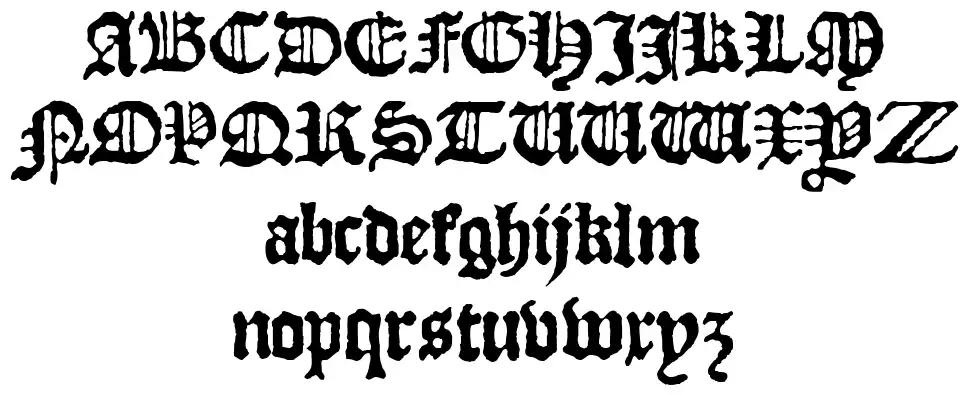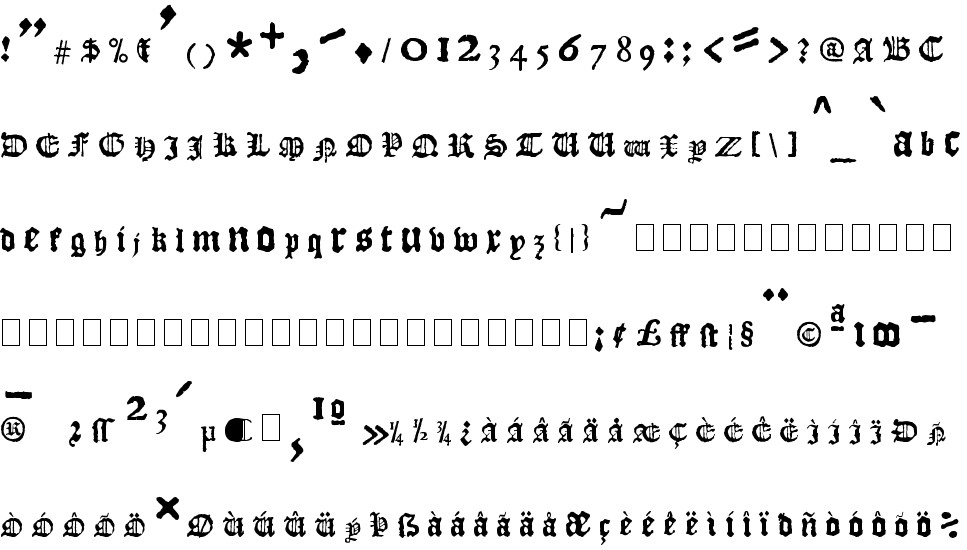
46+ Jsl Blackletter Font PNG. The jsl blackletter font is based upon a typeface created by william bullokar, for his booke at large, for the amendment of orthographie for english speech, published in 1580 by henrie denham. Download 186,286 free fonts at ufonts.com. Download the jsl blackletter font by dieter steffmann. ✔️ customize your own preview on ffonts.net to make sure it`s the right one for your designs. Copyright � 2000 jeffrey s. Download free fonts clipart and midi. Blackletter fonts have letters that are very bold and ornate. The jsl blackletter font has been downloaded 7,039 times. Jsl blackletter font by jeffrey s. 2.0 wed jan 05 12:08:13 2000 rating: Jsl blackletter, dieter steffmann, gothic, blackletter, jsl blackletter normal.ttf, jsl characters sample. Jsl blackletter.ttf(.otf) for windows and mac. The jsl blackletter font contains 215 beautifully designed characters. Jsl blackletter à by jeffrey s. It is a western calligraphy style that was used in europe from 1100s to the 1600s.
Download Free Jsl Blackletter Normal Font Dafontfree Net. It is a western calligraphy style that was used in europe from 1100s to the 1600s. ✔️ customize your own preview on ffonts.net to make sure it`s the right one for your designs. Download 186,286 free fonts at ufonts.com. Jsl blackletter à by jeffrey s. Blackletter fonts have letters that are very bold and ornate. Jsl blackletter font by jeffrey s. The jsl blackletter font is based upon a typeface created by william bullokar, for his booke at large, for the amendment of orthographie for english speech, published in 1580 by henrie denham. Jsl blackletter.ttf(.otf) for windows and mac. The jsl blackletter font has been downloaded 7,039 times. Copyright � 2000 jeffrey s. The jsl blackletter font contains 215 beautifully designed characters. Download free fonts clipart and midi. Download the jsl blackletter font by dieter steffmann. Jsl blackletter, dieter steffmann, gothic, blackletter, jsl blackletter normal.ttf, jsl characters sample. 2.0 wed jan 05 12:08:13 2000 rating:
443 Blackletter Fonts 2020 Creative Fabrica. Jsl blackletter, dieter steffmann, gothic, blackletter, jsl blackletter normal.ttf, jsl characters sample. Jsl blackletter.ttf(.otf) for windows and mac. Download the jsl blackletter font by dieter steffmann. It is a western calligraphy style that was used in europe from 1100s to the 1600s. Download 186,286 free fonts at ufonts.com. Jsl blackletter font by jeffrey s. The jsl blackletter font contains 215 beautifully designed characters. The jsl blackletter font has been downloaded 7,039 times. Download free fonts clipart and midi. ✔️ customize your own preview on ffonts.net to make sure it`s the right one for your designs. Copyright � 2000 jeffrey s. Blackletter fonts have letters that are very bold and ornate. The jsl blackletter font is based upon a typeface created by william bullokar, for his booke at large, for the amendment of orthographie for english speech, published in 1580 by henrie denham. 2.0 wed jan 05 12:08:13 2000 rating: Jsl blackletter à by jeffrey s.
300 Gambar Font Blackletter Terbaik Di 2020 Font Tipografi Monogram Logo Font Gratis. The jsl blackletter font is based upon a typeface created by william bullokar, for his booke at large, for the amendment of orthographie for english speech, published in 1580 by henrie denham. Jsl blackletter font by jeffrey s. ✔️ customize your own preview on ffonts.net to make sure it`s the right one for your designs. Copyright � 2000 jeffrey s. The jsl blackletter font contains 215 beautifully designed characters. Blackletter fonts have letters that are very bold and ornate. The jsl blackletter font has been downloaded 7,039 times. Download free fonts clipart and midi. It is a western calligraphy style that was used in europe from 1100s to the 1600s. Jsl blackletter, dieter steffmann, gothic, blackletter, jsl blackletter normal.ttf, jsl characters sample. Jsl blackletter à by jeffrey s. Download the jsl blackletter font by dieter steffmann. Download 186,286 free fonts at ufonts.com. 2.0 wed jan 05 12:08:13 2000 rating: Jsl blackletter.ttf(.otf) for windows and mac.
Jsl Blackletter Font Download Fonts4free. 2.0 wed jan 05 12:08:13 2000 rating: The jsl blackletter font contains 215 beautifully designed characters. The jsl blackletter font is based upon a typeface created by william bullokar, for his booke at large, for the amendment of orthographie for english speech, published in 1580 by henrie denham. Copyright � 2000 jeffrey s. ✔️ customize your own preview on ffonts.net to make sure it`s the right one for your designs. Download free fonts clipart and midi. Jsl blackletter.ttf(.otf) for windows and mac. Jsl blackletter font by jeffrey s. Blackletter fonts have letters that are very bold and ornate. Download 186,286 free fonts at ufonts.com. Jsl blackletter, dieter steffmann, gothic, blackletter, jsl blackletter normal.ttf, jsl characters sample. Download the jsl blackletter font by dieter steffmann. The jsl blackletter font has been downloaded 7,039 times. Jsl blackletter à by jeffrey s. It is a western calligraphy style that was used in europe from 1100s to the 1600s.
Download Free Jsl Blackletter Normal Font Dafontfree Net. The jsl blackletter font has been downloaded 7,039 times. ✔️ customize your own preview on ffonts.net to make sure it`s the right one for your designs. It is a western calligraphy style that was used in europe from 1100s to the 1600s. Copyright � 2000 jeffrey s. Download free fonts clipart and midi. Download 186,286 free fonts at ufonts.com. The jsl blackletter font contains 215 beautifully designed characters. Jsl blackletter à by jeffrey s. Jsl blackletter font by jeffrey s. Download the jsl blackletter font by dieter steffmann. The jsl blackletter font is based upon a typeface created by william bullokar, for his booke at large, for the amendment of orthographie for english speech, published in 1580 by henrie denham. Jsl blackletter, dieter steffmann, gothic, blackletter, jsl blackletter normal.ttf, jsl characters sample. Jsl blackletter.ttf(.otf) for windows and mac. Blackletter fonts have letters that are very bold and ornate. 2.0 wed jan 05 12:08:13 2000 rating:
300 Gambar Font Blackletter Terbaik Di 2020 Font Tipografi Monogram Logo Font Gratis. Copyright � 2000 jeffrey s. The jsl blackletter font has been downloaded 7,039 times. Jsl blackletter, dieter steffmann, gothic, blackletter, jsl blackletter normal.ttf, jsl characters sample. The jsl blackletter font is based upon a typeface created by william bullokar, for his booke at large, for the amendment of orthographie for english speech, published in 1580 by henrie denham. Download free fonts clipart and midi. 2.0 wed jan 05 12:08:13 2000 rating: Download the jsl blackletter font by dieter steffmann. The jsl blackletter font contains 215 beautifully designed characters. It is a western calligraphy style that was used in europe from 1100s to the 1600s. Jsl blackletter.ttf(.otf) for windows and mac. Jsl blackletter font by jeffrey s. Download 186,286 free fonts at ufonts.com. Blackletter fonts have letters that are very bold and ornate. ✔️ customize your own preview on ffonts.net to make sure it`s the right one for your designs. Jsl blackletter à by jeffrey s.
300 Gambar Font Blackletter Terbaik Di 2020 Font Tipografi Monogram Logo Font Gratis. Jsl blackletter, dieter steffmann, gothic, blackletter, jsl blackletter normal.ttf, jsl characters sample. Copyright � 2000 jeffrey s. Blackletter fonts have letters that are very bold and ornate. It is a western calligraphy style that was used in europe from 1100s to the 1600s. ✔️ customize your own preview on ffonts.net to make sure it`s the right one for your designs. Download 186,286 free fonts at ufonts.com. Jsl blackletter.ttf(.otf) for windows and mac. Download the jsl blackletter font by dieter steffmann. Download free fonts clipart and midi. Jsl blackletter à by jeffrey s. The jsl blackletter font is based upon a typeface created by william bullokar, for his booke at large, for the amendment of orthographie for english speech, published in 1580 by henrie denham. Jsl blackletter font by jeffrey s. The jsl blackletter font contains 215 beautifully designed characters. 2.0 wed jan 05 12:08:13 2000 rating: The jsl blackletter font has been downloaded 7,039 times.
The jsl blackletter font contains 215 beautifully designed characters.
Based on font metric, jsl blackletter normal has usweight 400, width 5, and italic angle 0. 3.0 monday, 11 december 2000. Jsl blackletter à by jeffrey s. Copyright � 2000 jeffrey s. ✔️ customize your own preview on ffonts.net to make sure it`s the right one for your designs. Jsl blackletter, dieter steffmann, gothic, blackletter, jsl blackletter normal.ttf, jsl characters sample. The jsl blackletter font contains 215 beautifully designed characters. Download jsl blackletter font (1 styles). It is blackletter font and has 1 style. Download 186,286 free fonts at ufonts.com.